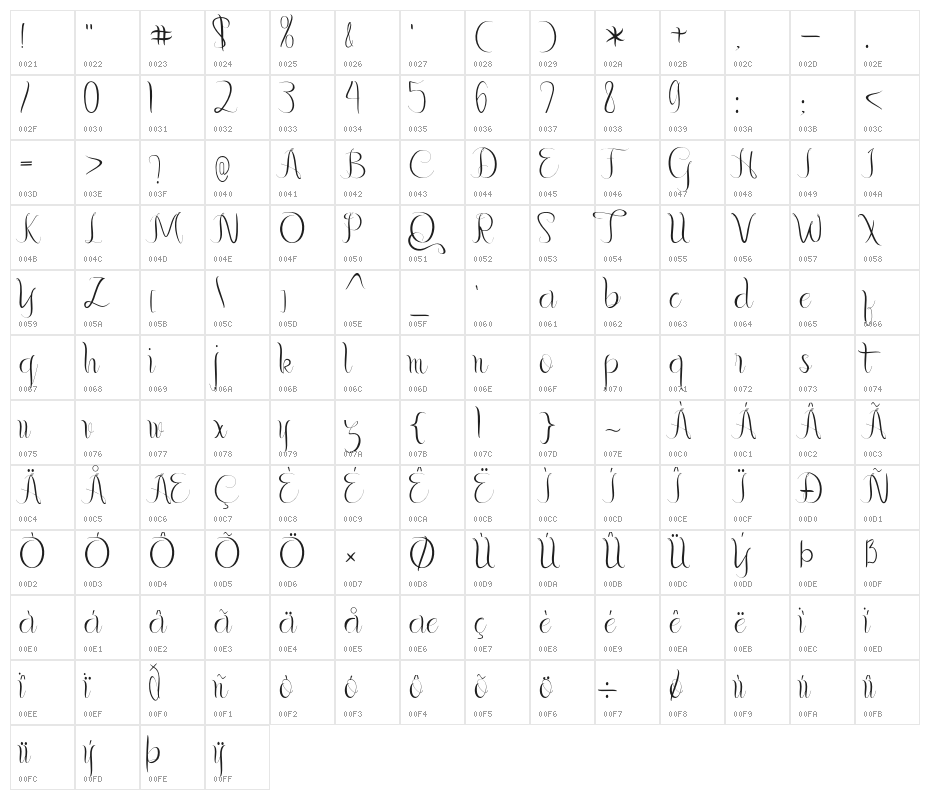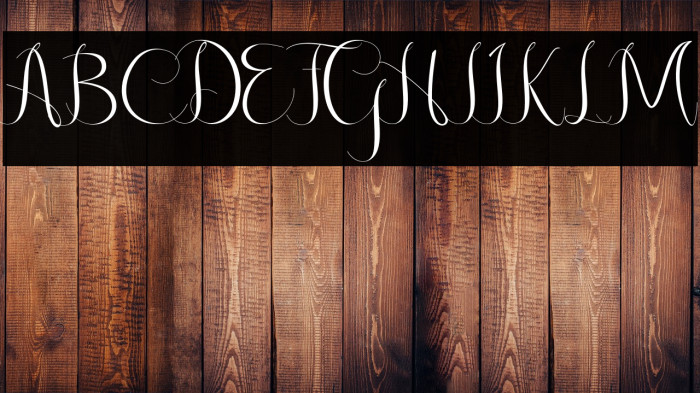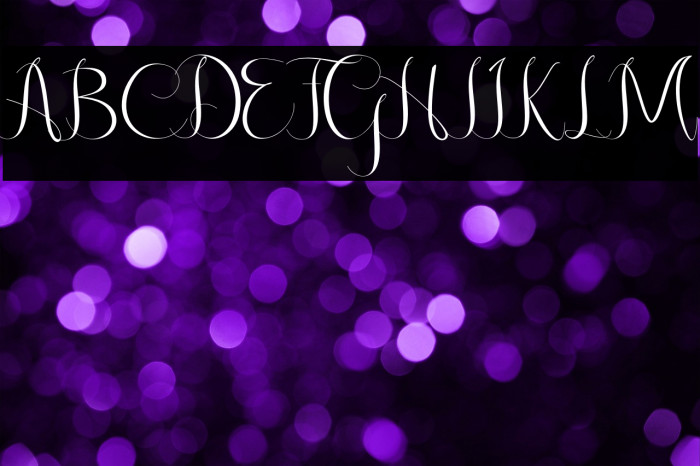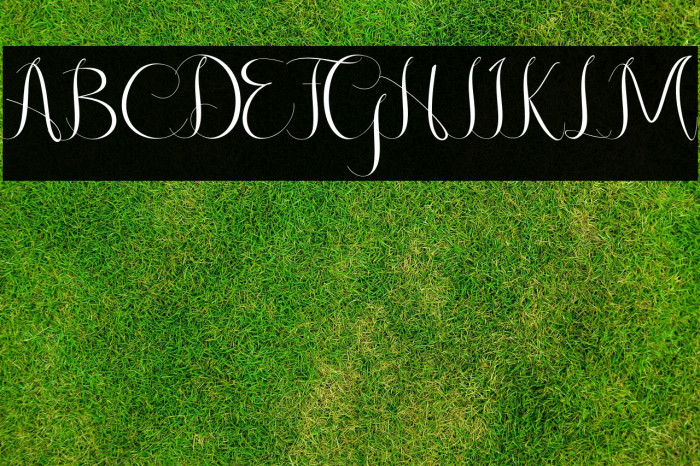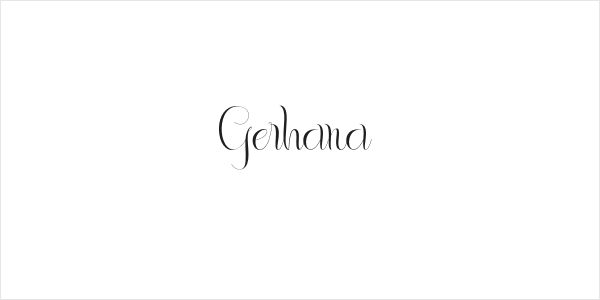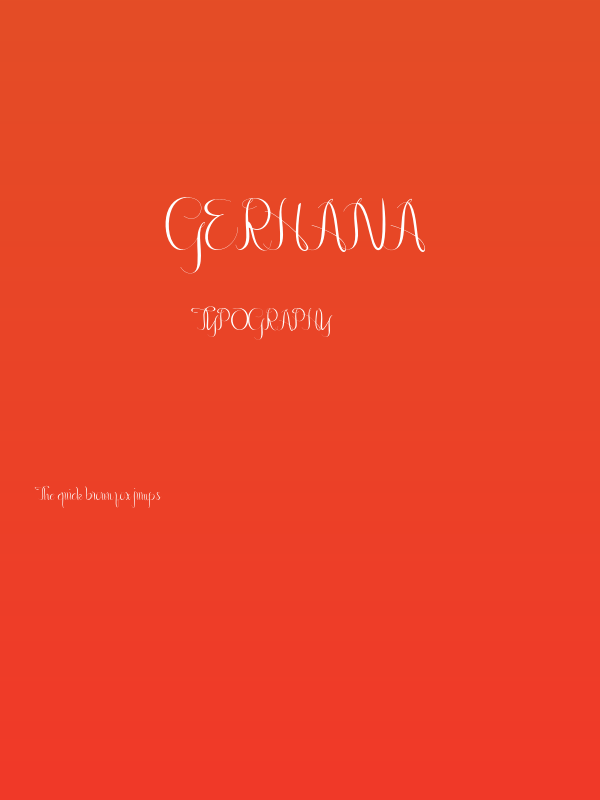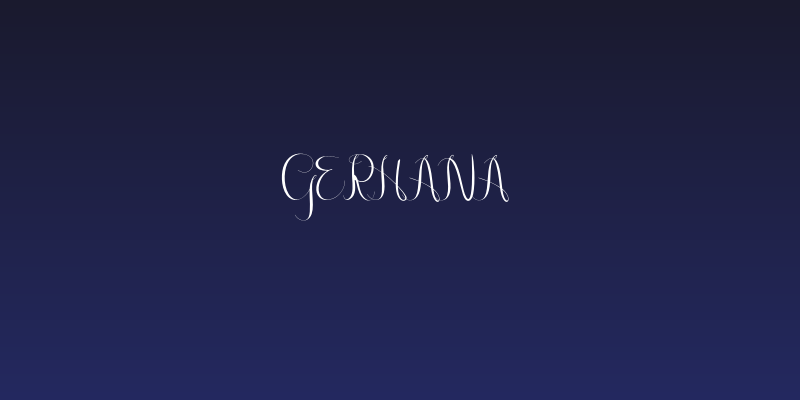
Gerhana Font
Gerhana Description
This font features an elegant and flowing script style, characterized by its intricate loops and swirls that give it a sophisticated and artistic appearance. The uppercase letters are tall and graceful, with a consistent stroke width that adds to its refined look. The lowercase letters maintain the same fluidity, with some characters extending below the baseline, enhancing its decorative nature. The numerals are uniquely styled, maintaining the font's overall aesthetic with their curvaceous forms. Special characters are equally ornate, fitting seamlessly with the rest of the typeface. This font is ideal for projects that require a touch of elegance and creativity.
| Proposed Projects | Wedding invitations, luxury branding, artistic posters, and elegant packaging. |